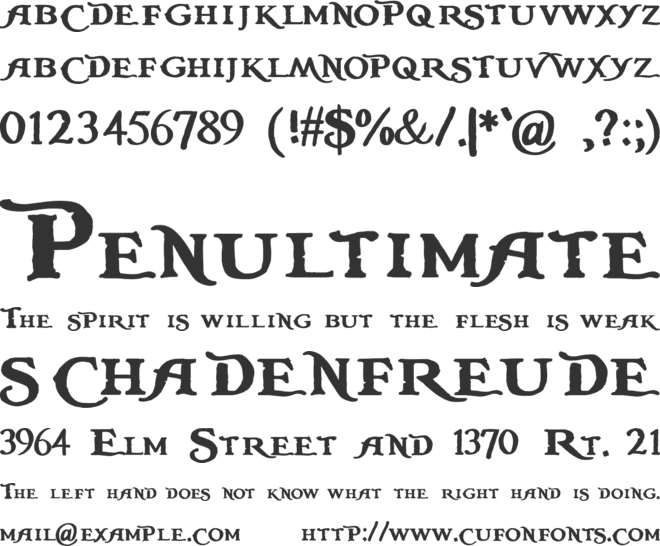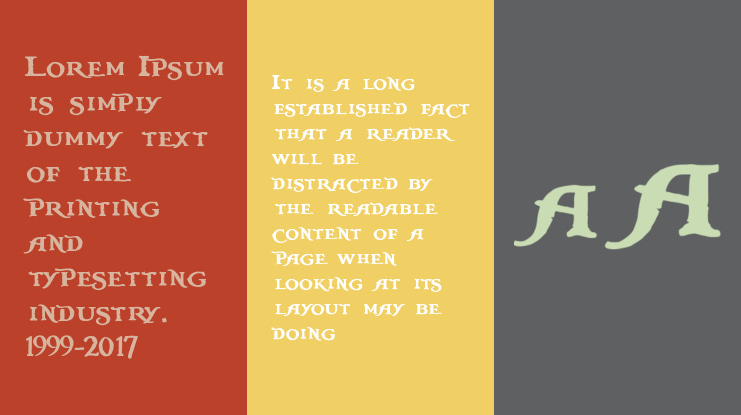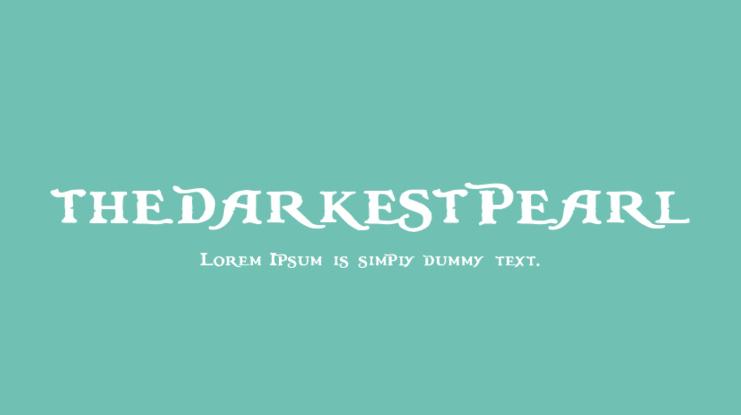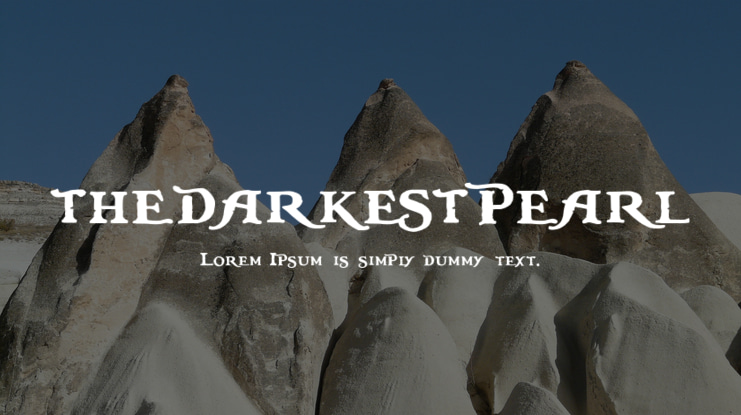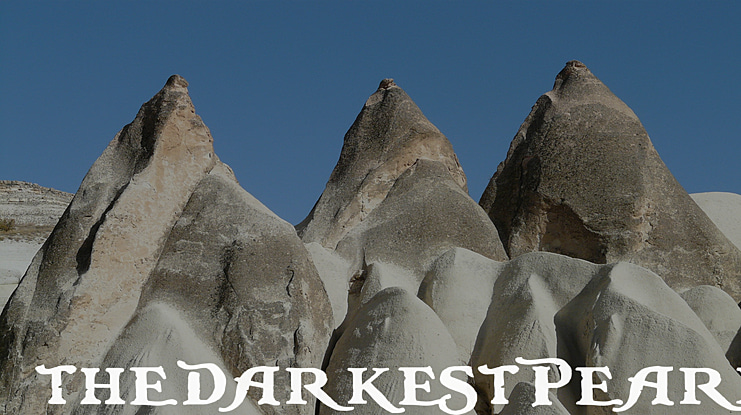
thedarkestpearl Font
A follow-up to the original “Black Pearl” font (https://fontspace.com/joannavu/blackpearl) which was one of my first fonts, and as such, there were some things I didn’t like much. So, I worked on some inconsistencies, redesigned some characters and came up with “The Darkest Pearl”. An organic, heavy font, inspired by pirates.